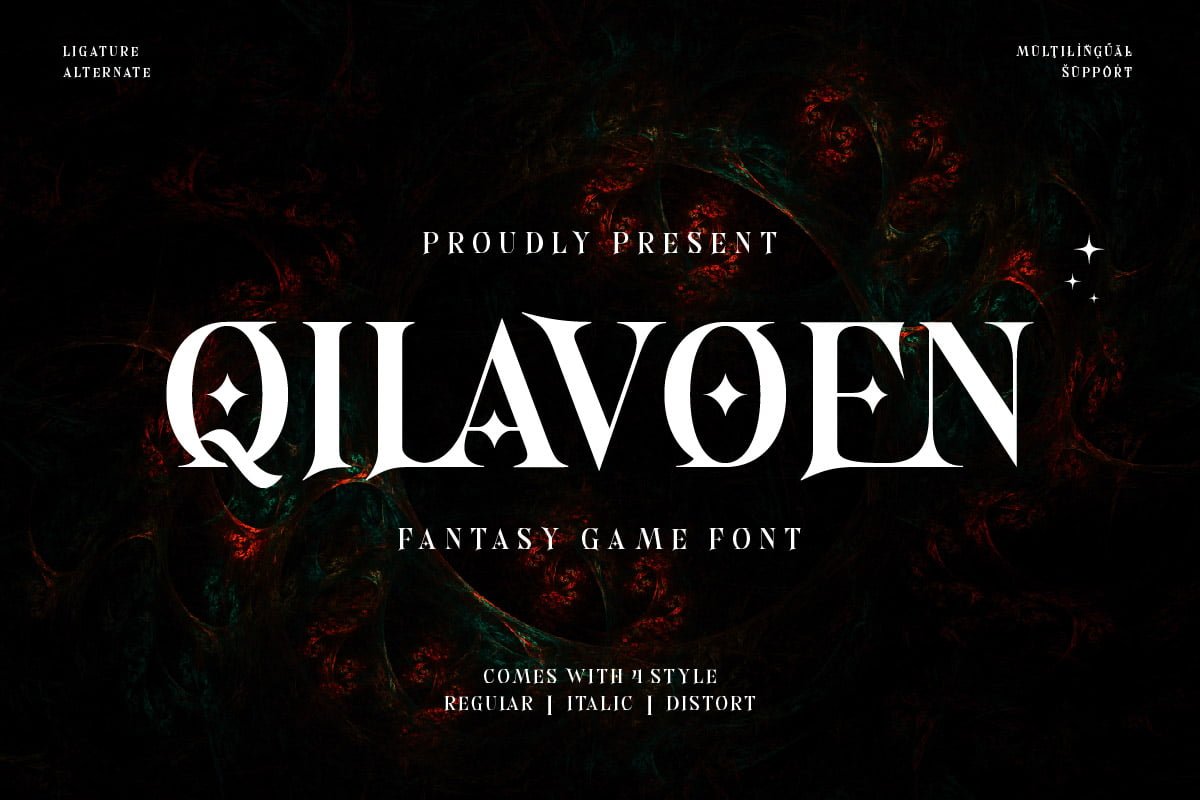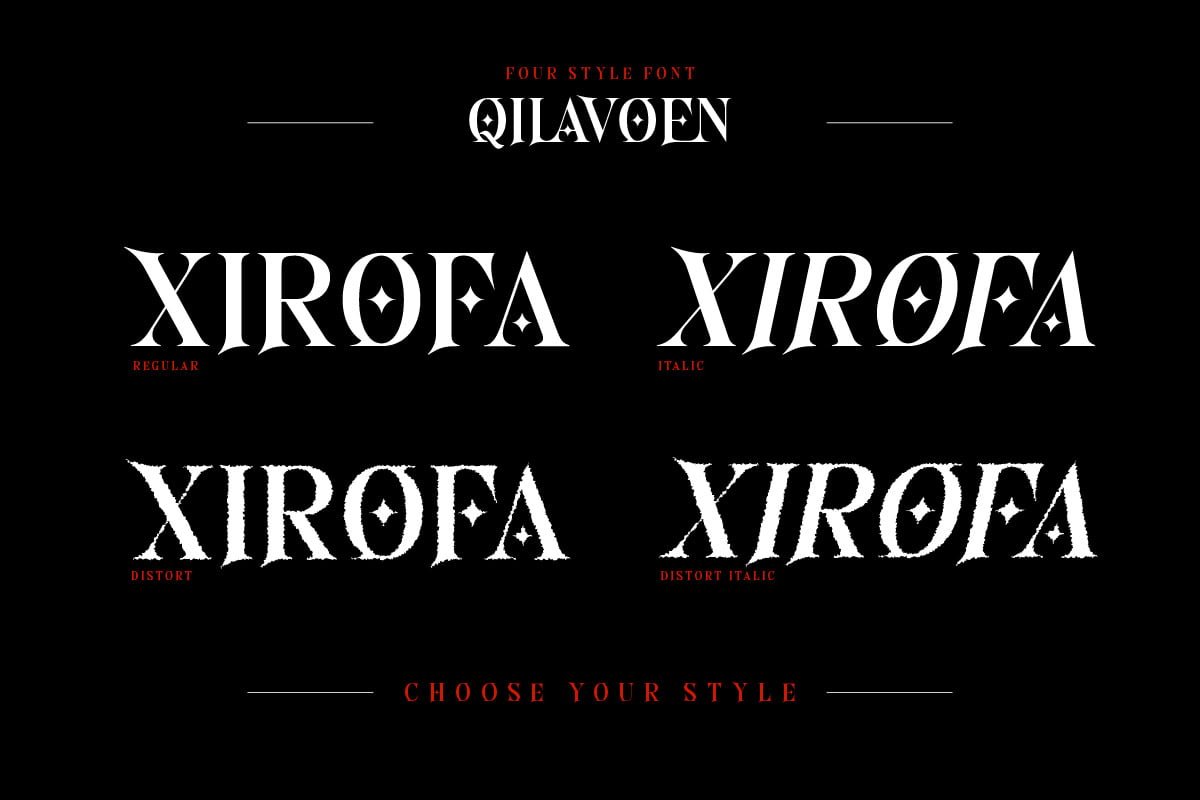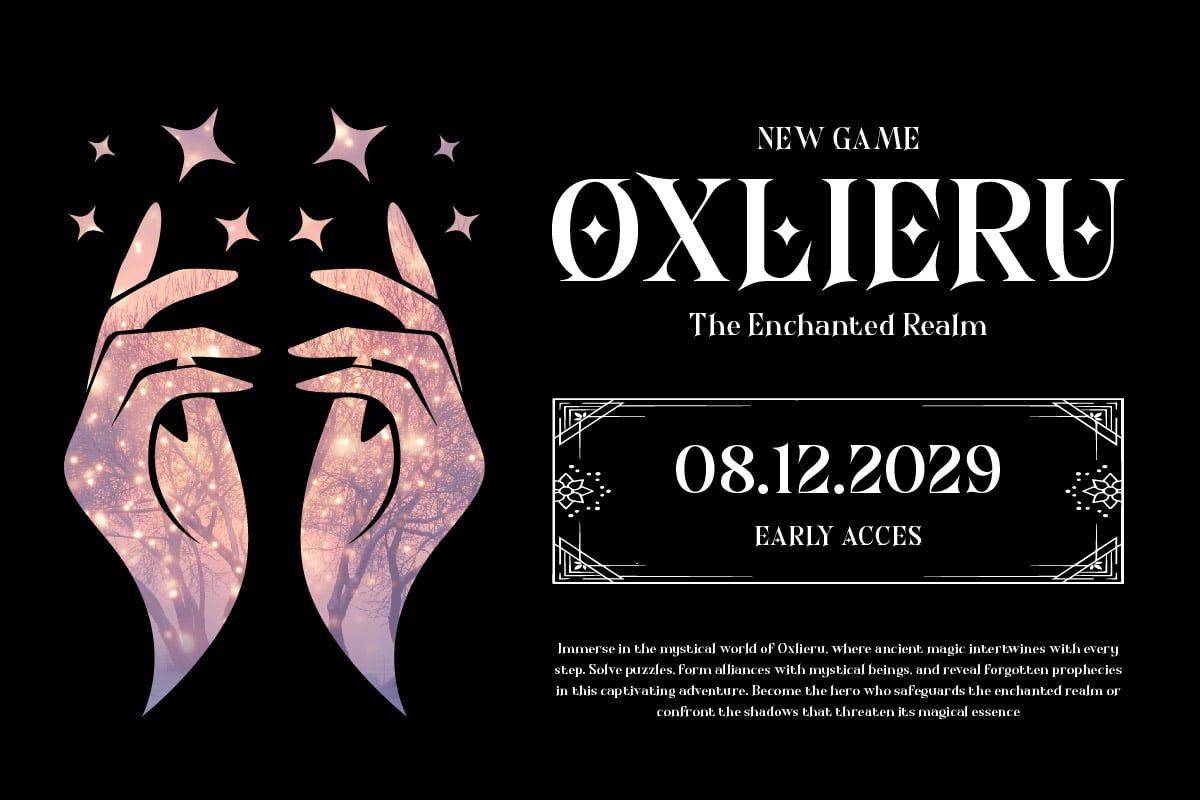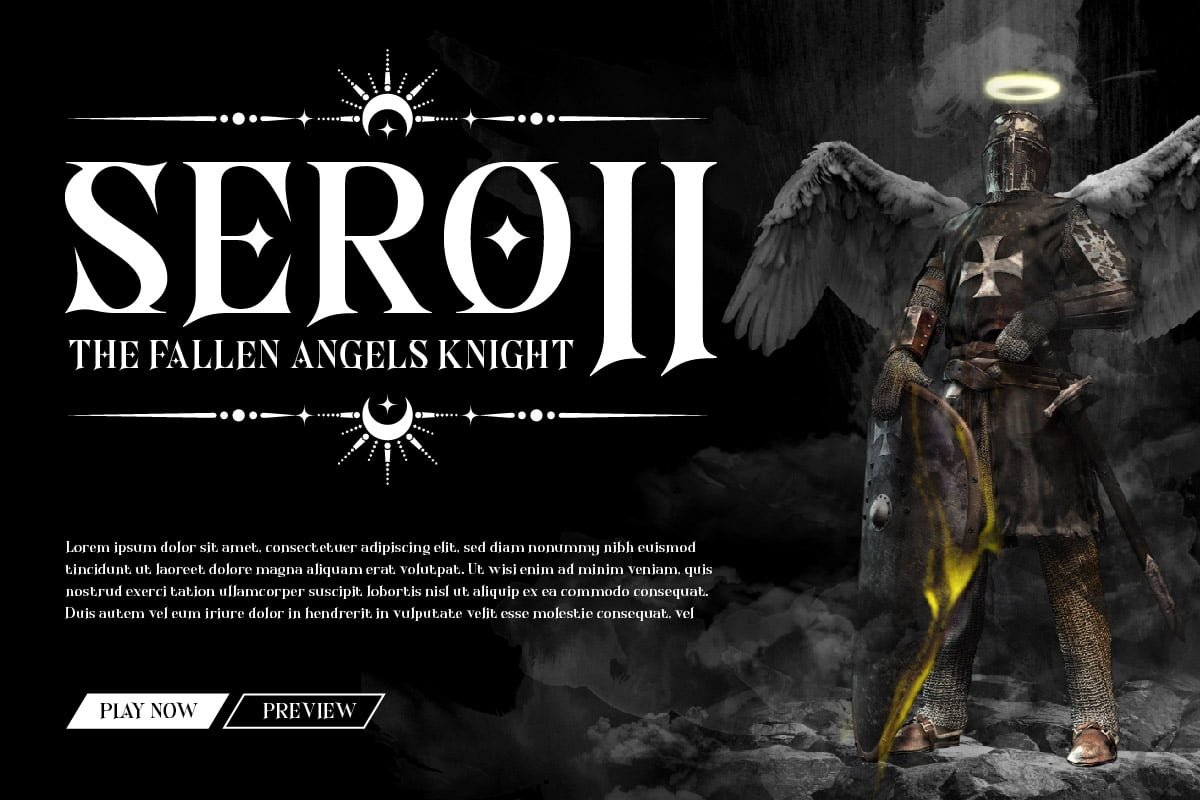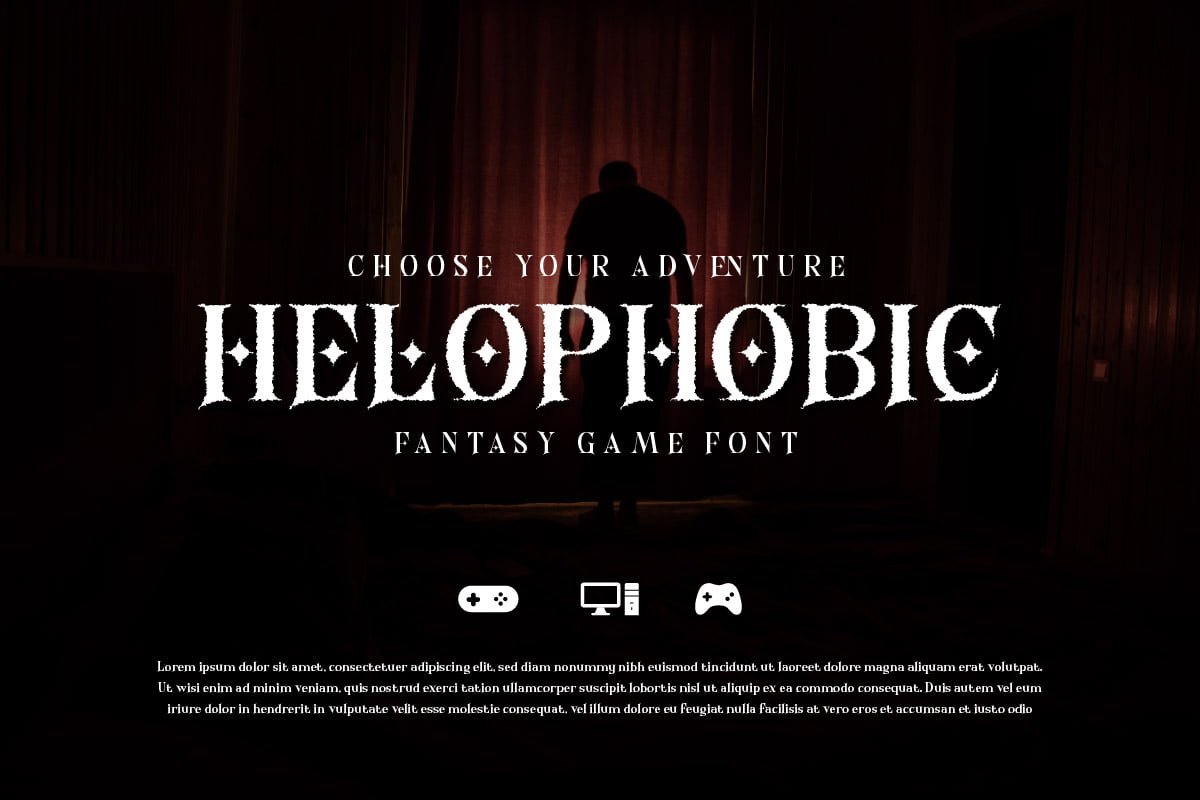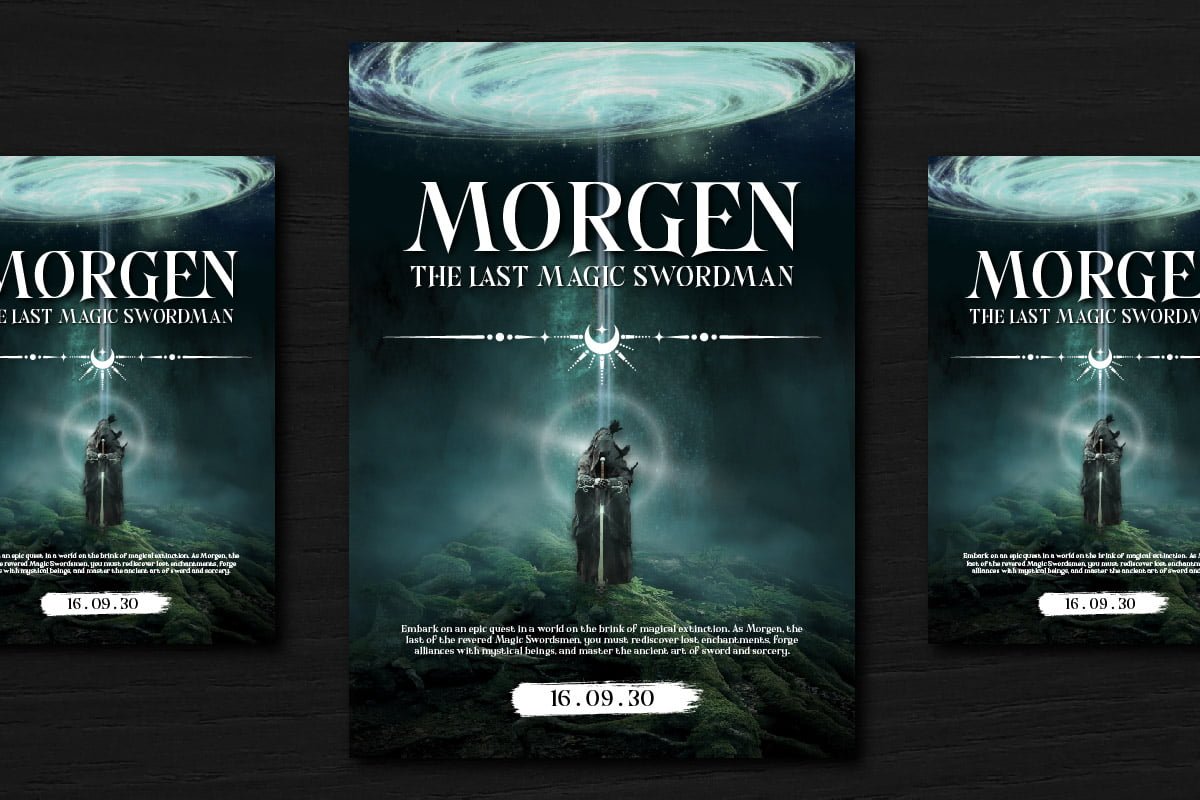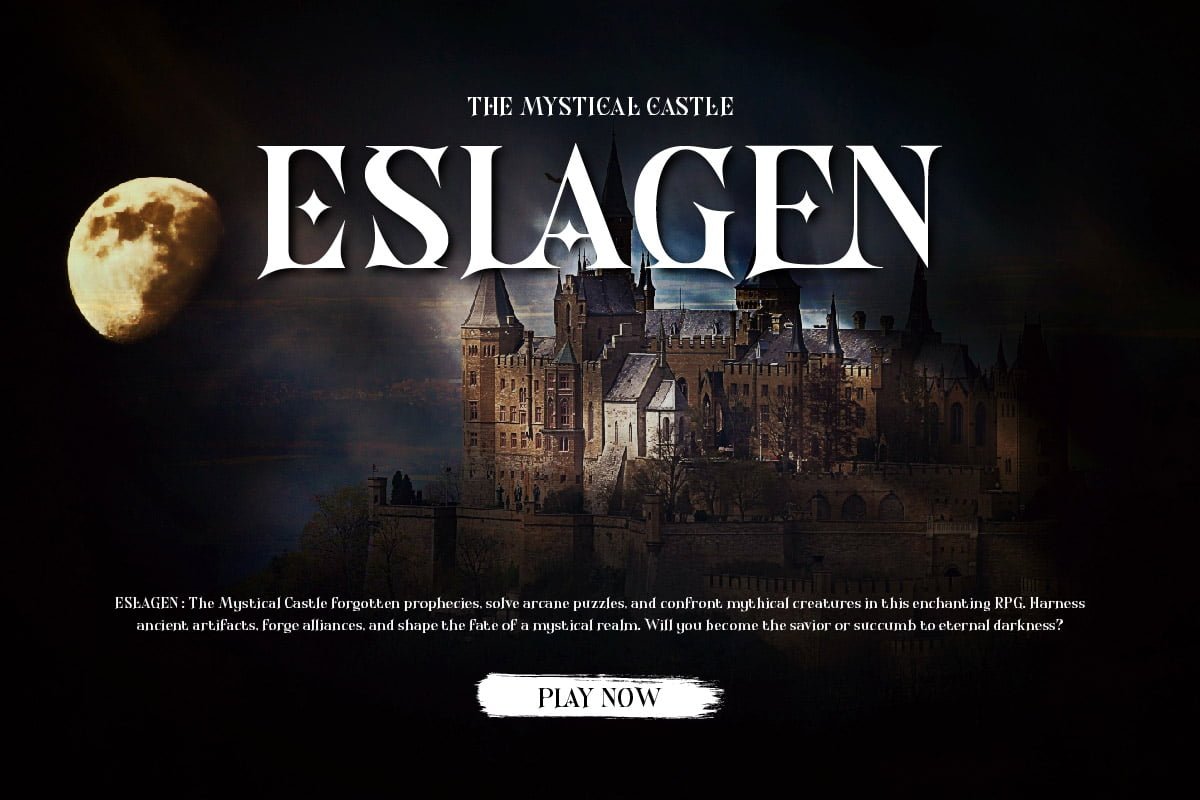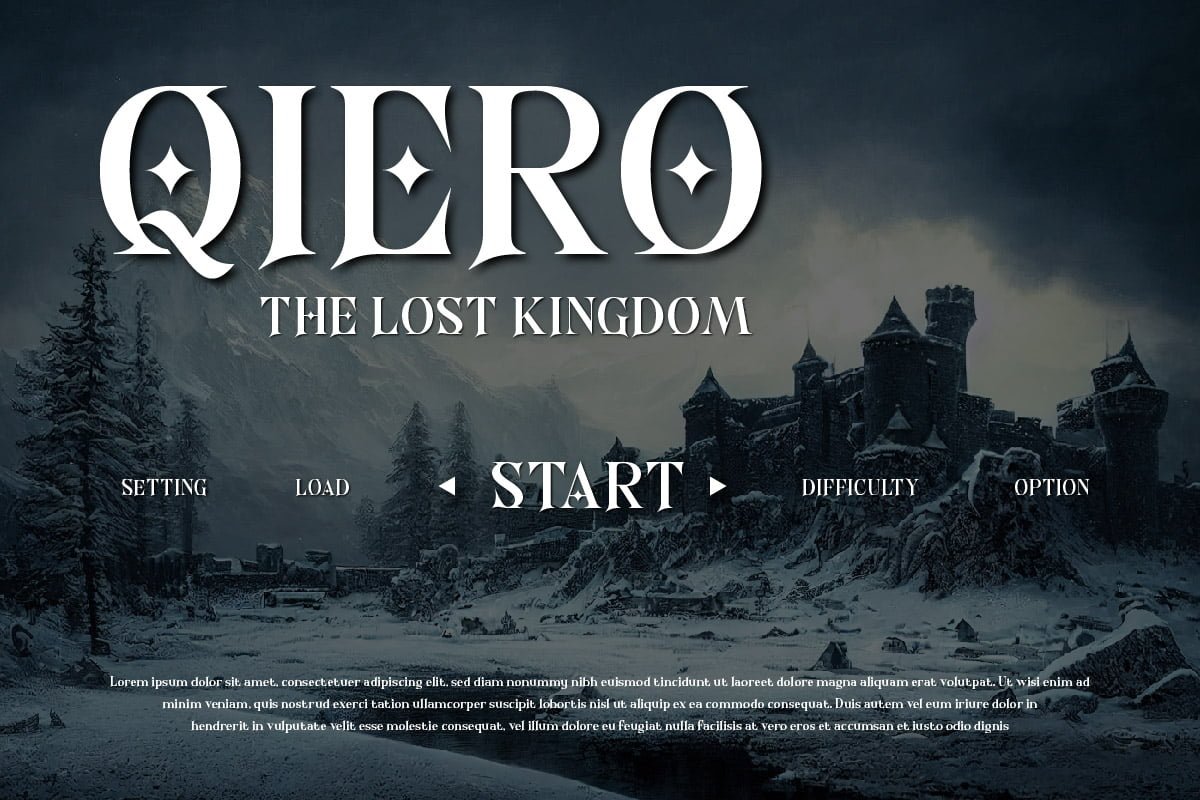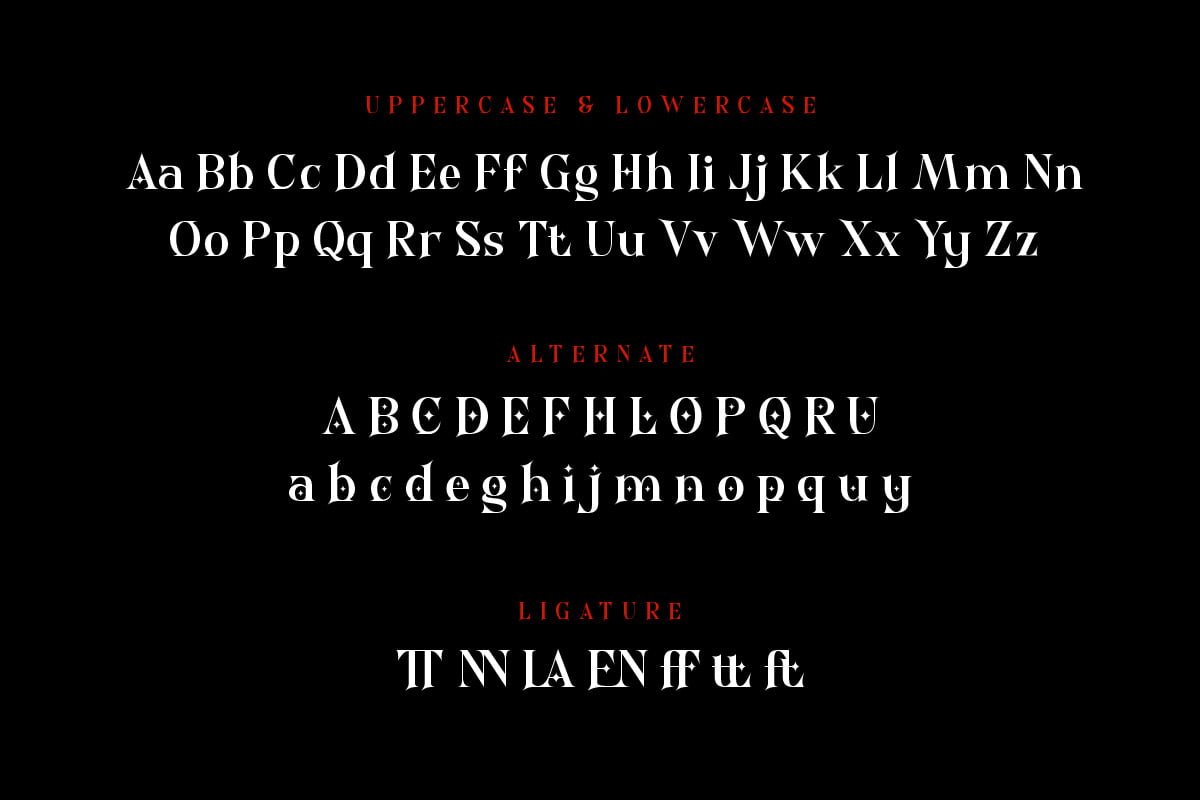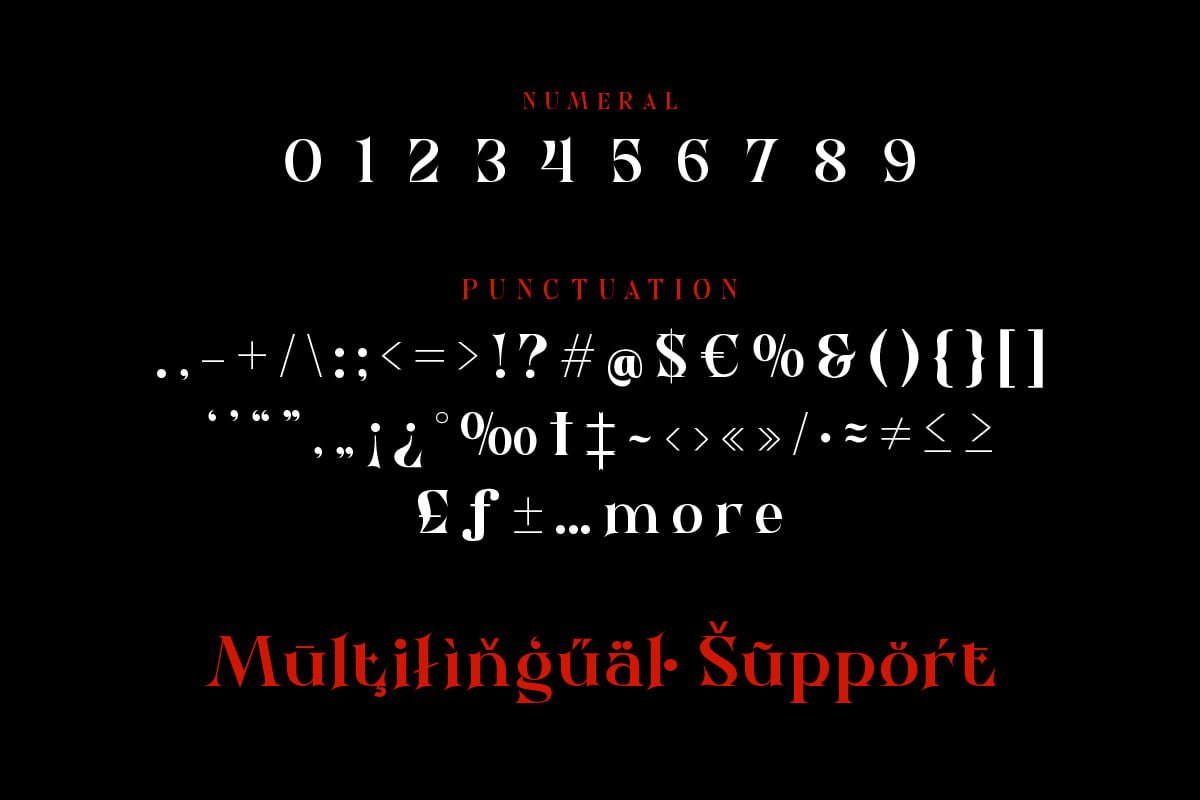
5. Qilavoen – Game Display Font
Qilavoen – Game Display Font
Welcome to the world of gaming with Qilavoen, a display font specially designed to express the passion and excitement of the world of video games. Qilavoen combines strong display elements with a dynamic gaming touch, creating an epic and stylish display.
Each Qilavoen letter reflects strength and a spirit of adventure, with a sturdy and modern display design. This font is ideal for use in game titles, logos, or other design elements that require a unique and memorable typographic identity.
Qilavoen’s uniqueness lies in its ability to deliver a thrilling gaming atmosphere with clarity and visual appeal. From action games to fantasy RPGs, this font is ready to provide a striking and engaging typographic identity.
With Qilavoen, bring a thrilling gaming feel to your designs. Let each letter be a visual travel guide through your game world, showcasing engaging design elements and inviting players to explore the world you create.